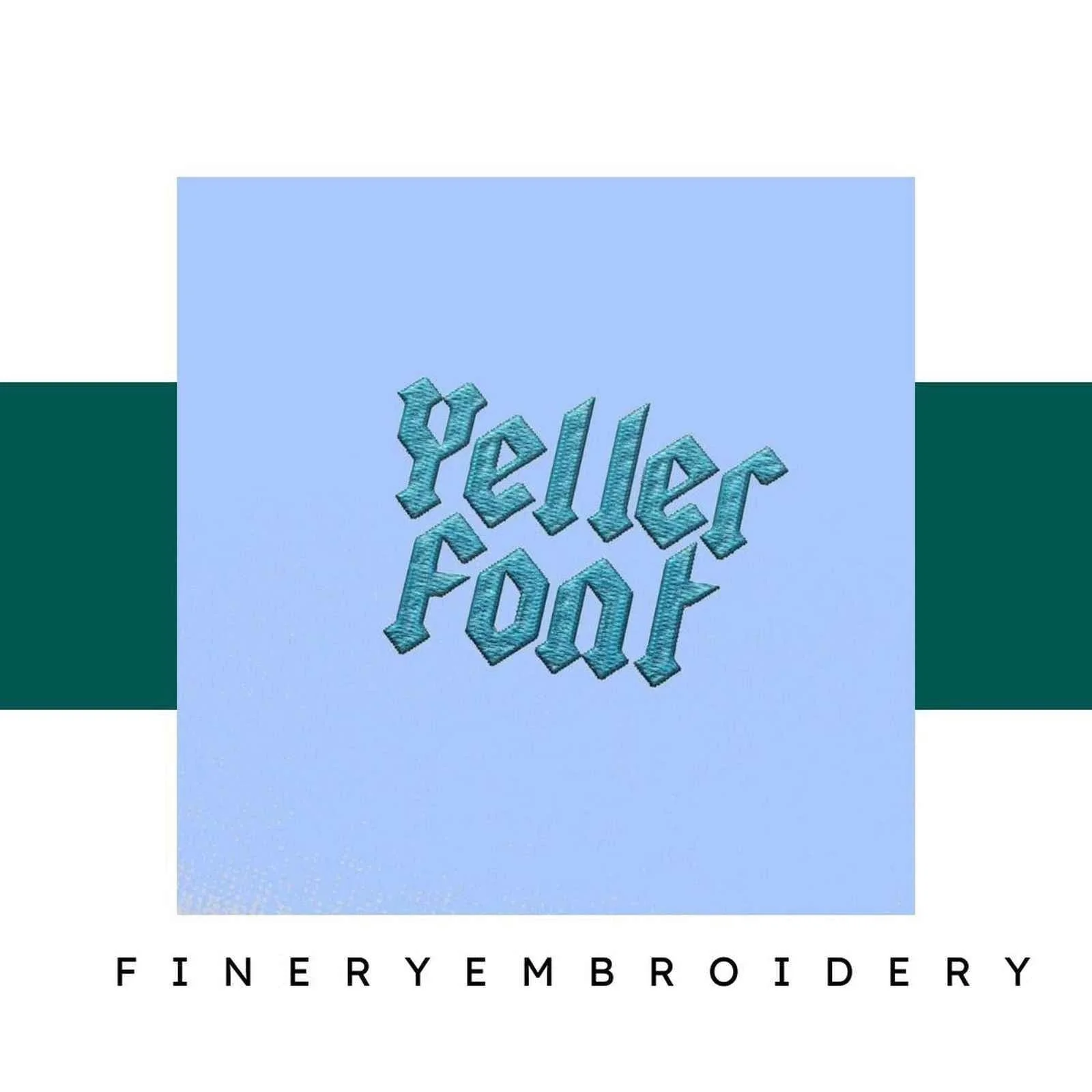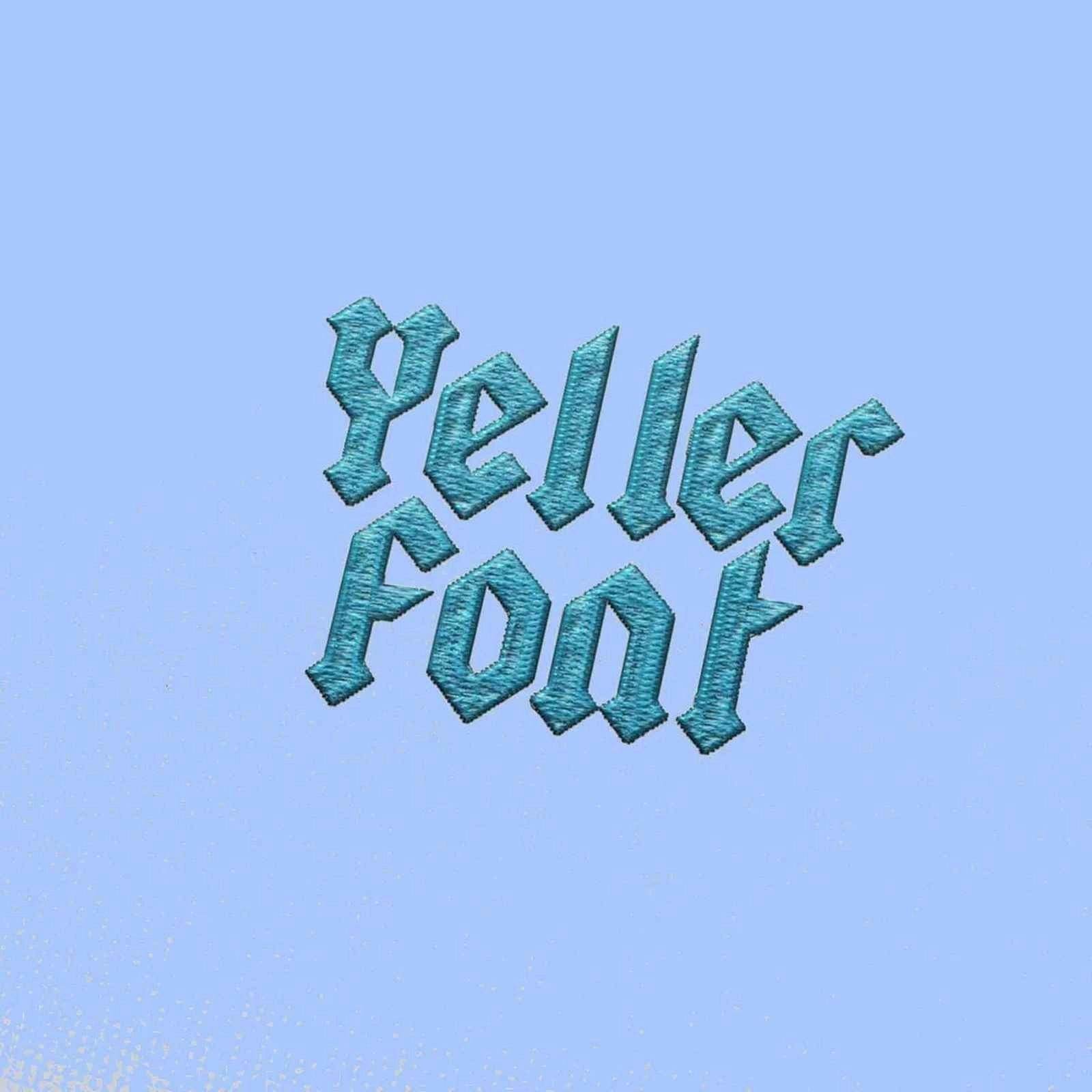
Yeller Embroidery alphabet Font Set
Transform Your Creations with the Yeller Embroidery Alphabet Font Set – Where Elegance Meets Quality!
Introducing the Yeller Embroidery Alphabet Font Set, your new essential for personalizing any project with class and precision. This stunning collection is designed to elevate your embroidery game, offering intricate alphabet designs that blend seamlessly into any fabric. Whether you're looking to embellish clothing or create unique home decor, this font set has you covered.
Why You'll Love This Design
The Yeller Embroidery Alphabet Font Set is all about sophistication and versatility. Each letter is crafted with attention to detail, ensuring it stands out beautifully on any surface. You'll appreciate how easy it is to integrate this elegant font into your existing embroidery projects, allowing you to make a statement with every creation.
Creative Applications
With the Yeller font set, the possibilities are endless! Personalize clothing items for special occasions, create custom gifts for loved ones, or add a touch of charm to your home décor. This font is perfect for monograms, quotes, and custom designs, making it a must-have for any embroidery enthusiast.
- Perfect for personalizing clothing, gifts, and home décor items.